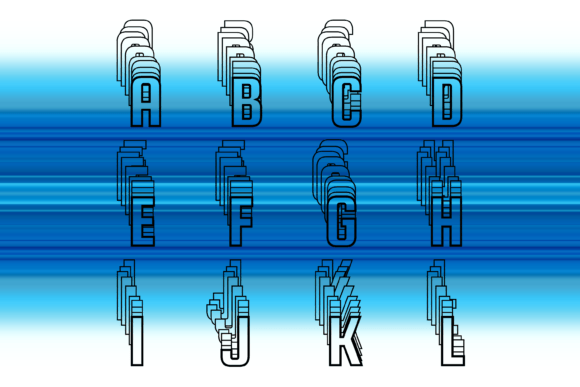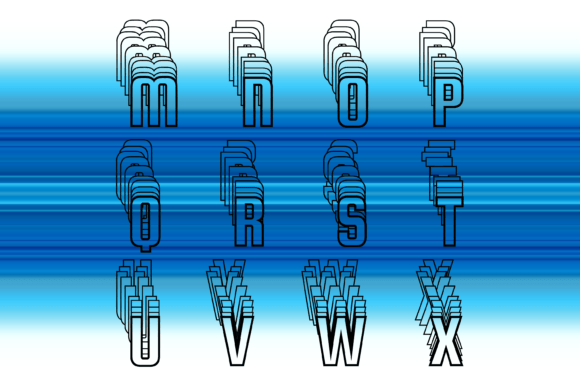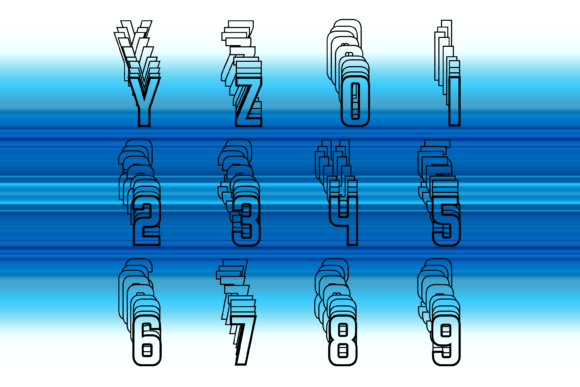
Introducing Drop Font: The Ultimate Modern Display Font
Are you looking for a font that can add a touch of modernity to your designs? Look no further than Drop Font! This incredibly cool display font is perfect for futuristic designs, DIY crafts, and any creation that requires a sleek and contemporary look. In this article, we’ll dive into the world of Drop Font and explore its features, benefits, and uses.
What is Drop Font?
Drop Font is a modern display font designed to make a statement. Its unique and futuristic design makes it perfect for projects that require a bold and eye-catching look. The font features clean lines, sharp edges, and a sleek aesthetic that is sure to turn heads. Whether you’re designing a logo, a poster, or a website, Drop Font is an excellent choice.
Key Features of Drop Font
- Modern Design: Drop Font boasts a modern design that is perfect for futuristic and contemporary projects.
- Clean Lines: The font features clean lines and sharp edges, making it easy to read and visually appealing.
- Versatile: Drop Font can be used for a wide range of projects, from DIY crafts to professional designs.
Benefits of Using Drop Font
So, why should you choose Drop Font for your next project? Here are just a few benefits of using this amazing font:
- Adds a Modern Touch: Drop Font can instantly add a modern touch to your designs, making them look fresh and contemporary.
- Improves Readability: The font’s clean lines and sharp edges make it easy to read, even at small sizes.
- Enhances Creativity: Drop Font’s unique design can inspire creativity and help you think outside the box.
Using Drop Font for DIY Crafts
Drop Font is not just limited to professional designs; it’s also perfect for DIY crafts! Whether you’re making a handmade card, a scrapbook, or a craft project, this font can add a touch of modernity and sophistication. Here are a few ideas for using Drop Font in your DIY crafts:
- Handmade Cards: Use Drop Font to create personalized and modern handmade cards for special occasions.
- Scrapbooking: Add a touch of modernity to your scrapbook pages with Drop Font.
- Craft Projects: Use the font to create modern and eye-catching craft projects, such as signs, posters, and more.
In conclusion, Drop Font is an incredibly cool display font that is perfect for futuristic designs, DIY crafts, and any creation that requires a modern touch. Its unique design, clean lines, and versatility make it an excellent choice for designers and crafters alike. With its ease of use and compatibility with multiple platforms, Drop Font is a must-have font for any designer or crafter looking to add a touch of modernity to their projects.